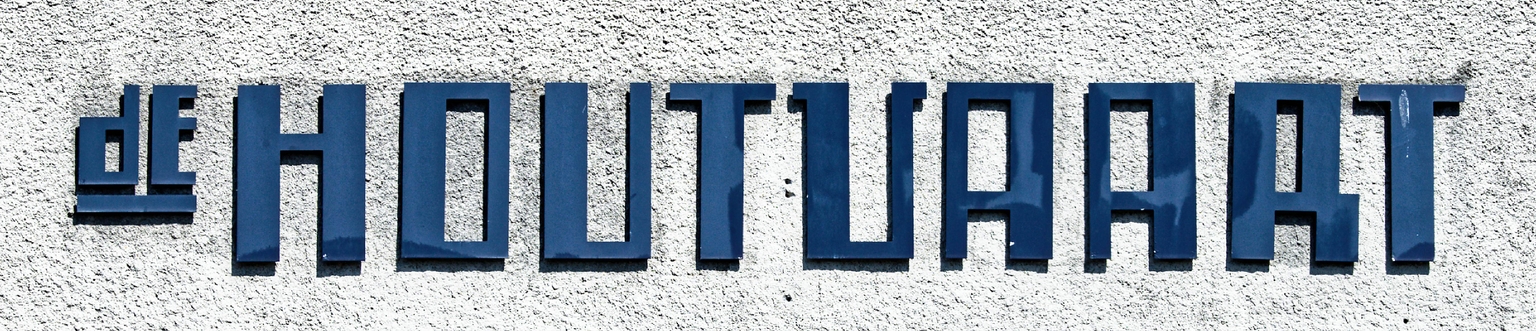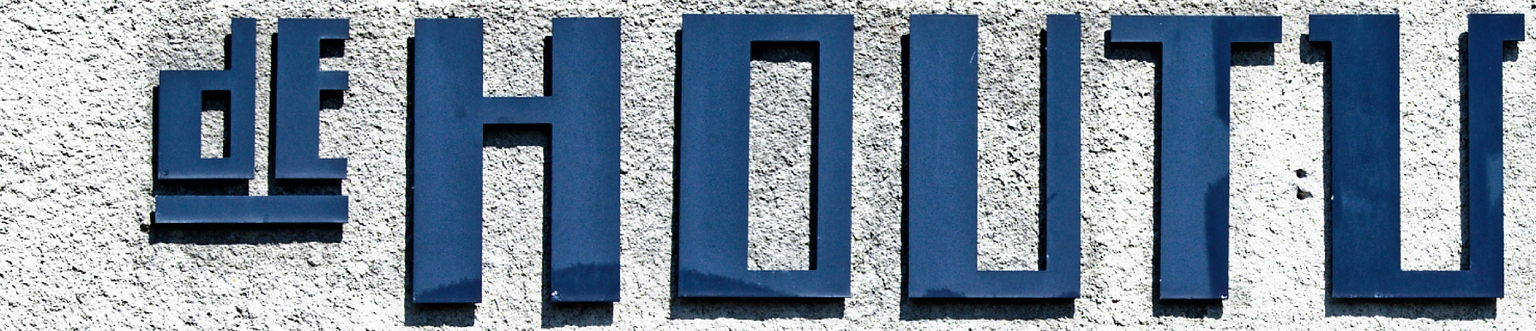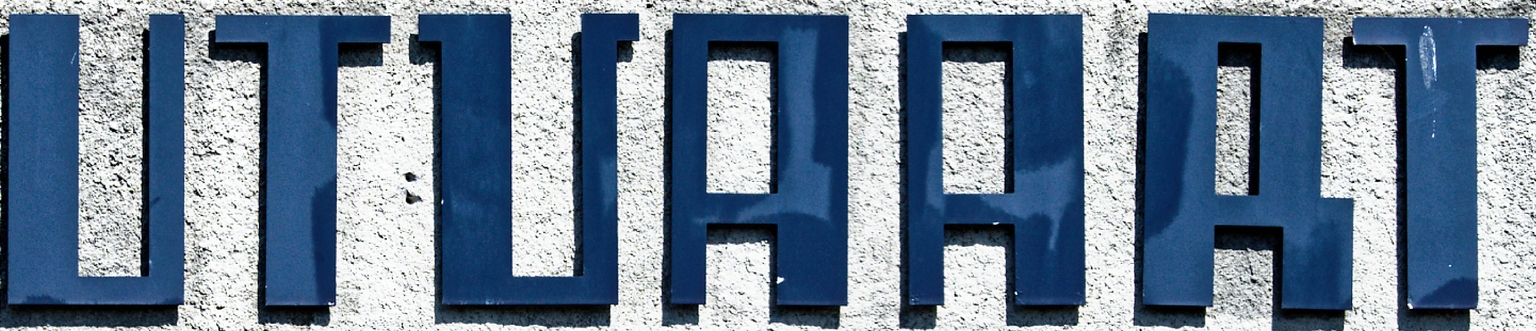
Houtvaart
Houtvaart is a display typeface by Ramiro Espinoza, strongly inspired by the distinctive lettering found on the façade of the historic De Houtvaart swimming pool in Haarlem, Netherlands. Built in 1927 and located in the Houtvaartkwartier district, the monumental building is an outstanding example of Dutch Cubist architecture and was designed by architect P. F. de Bordes. Recognized today as a protected heritage site, De Houtvaart continues to draw admiration not only for its architecture but also for the striking, geometric letters that identify it.
Espinoza, captivated by the building's visual harmony and the bold stylization of its signage, meticulously documented and digitized the original letterforms. The result is Houtvaart, a typeface that channels the spirit of early 20th-century modernism with minimalist shapes, no curves, and compressed proportions.
Houtvaart is particularly well-suited for use in museum communications, architecture books, electronic music festivals, posters, artist websites, museum catalogs, or any design project that calls for a bold and unconventional aesthetic. Both a typographic homage and a tool for expressive, historically aware design, Houtvaart invites designers to make a confident visual statement.